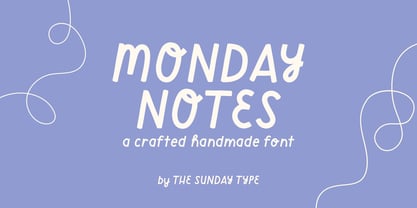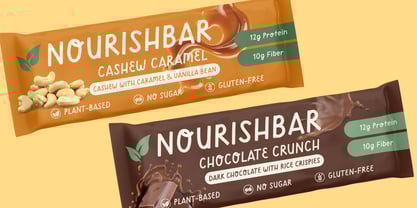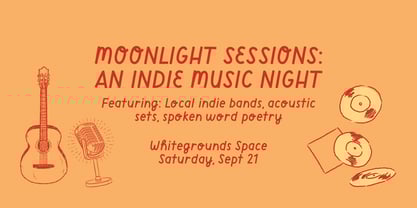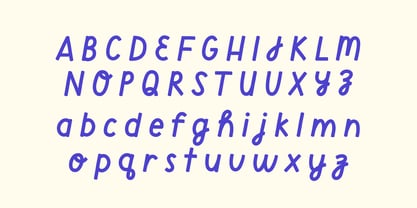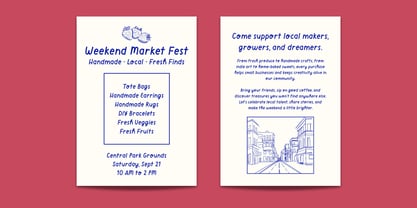
Monday Notes
by Sunday Type
The Monday Notes Font Family was designed by Alessa Jo and published by Sunday Type. Monday Notes contains 1 styles.
Monday Notes is a handwritten sans serif with a calm, structured feel. The letters follow a squared form but are softened with rounded edges, giving it a balance of clarity and warmth. It reads cleanly while still showing the human touch—steady, approachable, and versatile for notes, labels, headings, or anything that benefits from a relaxed but readable style.
About Sunday Type
A tiny type studio built on real handwriting—ink, smudges, doodles and all. The fonts keep their wobble, curl, and uneven charm instead of being cleaned into sameness. Each one comes from mood and memory rather than rules. Nothing here is rushed or glossy; everything is made to feel warm, familiar, and a little odd in a way that makes you like it more.